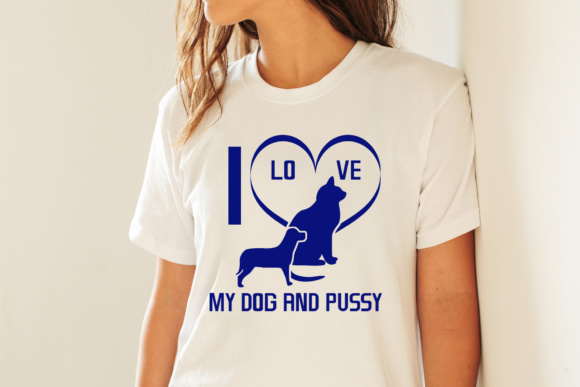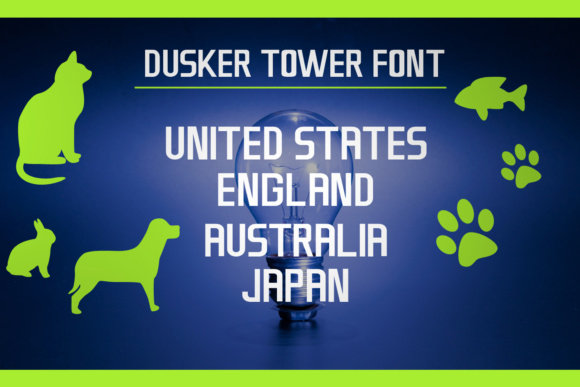
The Ultimate Guide to Dusker Tower Font: Elevate Your Designs with Confidence
I’ll never forget the time I was working on a project for a client who needed a bold, eye-catching font to make their brand stand out. I scoured the internet, tried countless fonts, but nothing seemed quite right. That was until I stumbled upon Dusker Tower Font. 💡
This bold, high-style, tall Sans Serif font has been a game-changer for my designs, and I’m excited to share my experience with you. Whether you’re a designer, crafter, or creative hobbyist, you’ll love the versatility and impact of Dusker Tower.
An Honest Review of Dusker Tower Font
- ✅ Versatility: Dusker Tower works well in small, medium, and large size designs, making it perfect for a wide range of projects.
- ✅ Bold and Eye-Catching: The font’s tall, sans-serif design makes it perfect for headlines, titles, and emphasis text.
- ✅ Clean and Modern: The font’s clean lines and modern aesthetic make it perfect for contemporary designs.
- ⚠️ Limited use in body text: While Dusker Tower is perfect for headlines and titles, it may not be the best choice for body text due to its bold and tall design.
- ⚠️ Requires careful kerning: As with any font, careful kerning is necessary to ensure that the text looks professional and polished.
The Backstory of Dusker Tower Font
Dusker Tower Font was designed with the goal of creating a bold, eye-catching font that would make a statement in any design. The designer, inspired by modern architecture and sleek lines, created a font that is both clean and impactful.
| Font Name | Dusker Tower Font |
| Author | Laks Mi |
Q: What is the best use for Dusker Tower Font?
A: Dusker Tower Font is perfect for titles, headings, and emphasis text in a wide range of designs, from posters and flyers to websites and social media graphics.
Q: Can I use Dusker Tower Font for body text?
A: While Dusker Tower Font is bold and eye-catching, it may not be the best choice for body text due to its tall and bold design. However, it can be used for short paragraphs or captions.
Q: Is Dusker Tower Font suitable for digital use?
A: Yes, Dusker Tower Font is optimized for digital use and works well in a variety of digital applications, from websites and social media graphics to presentations and videos.